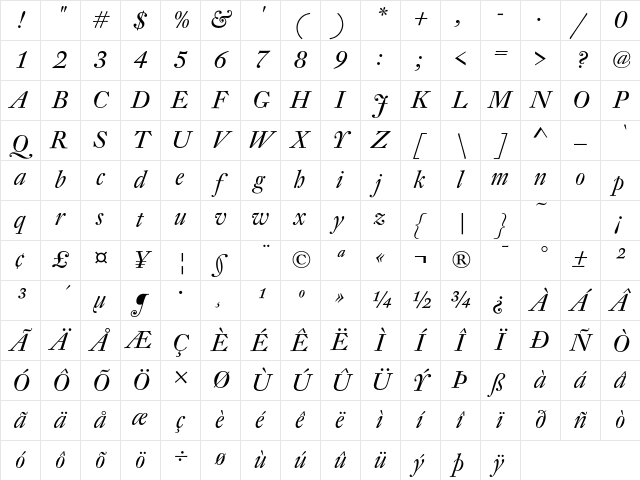
DTLFleischmannD Italic
Design Context for DTLFleischmannD
DTLFleischmannD is a composed and adaptable typeface that performs quietly and consistently across a wide range of design contexts. The slanted form adds forward momentum and visual energy.
Pro Tip: Use DTLFleischmannD for emphasis, pull quotes, and subheadings where its slanted energy can add rhythm to the layout.